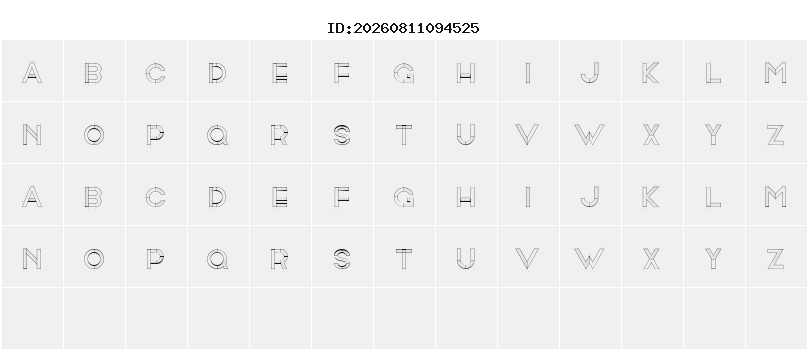
RollandinEmilie Preview
• Font Name: RollandinEmilie
• Designer: Emilie Rollandin
• Manufacturer: Architetto Emilie Rollandin
About RollandinEmilie.ttf
RollandinEmilie.ttf is a modern, elegant sans-serif font designed for ultimate readability and visual harmony. Perfect for branding, headlines, web design, and print materials.